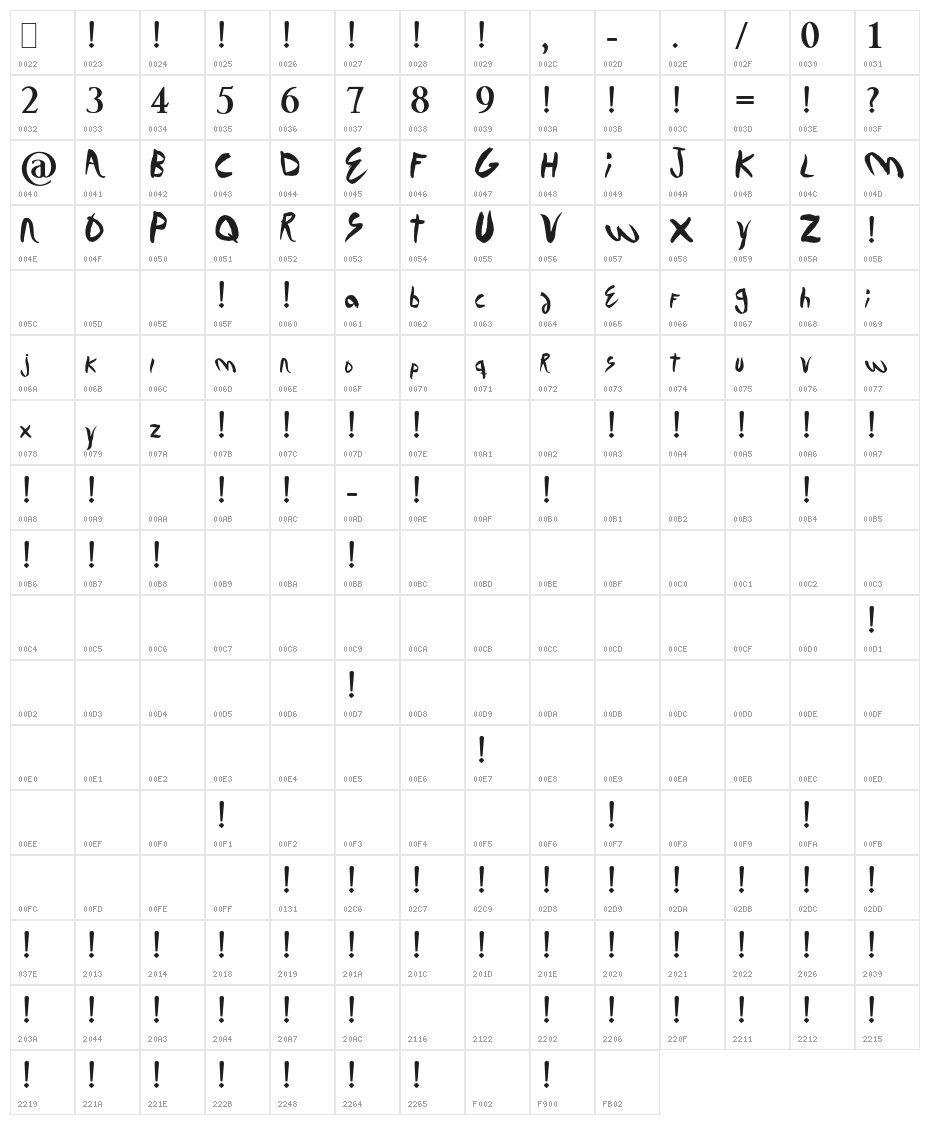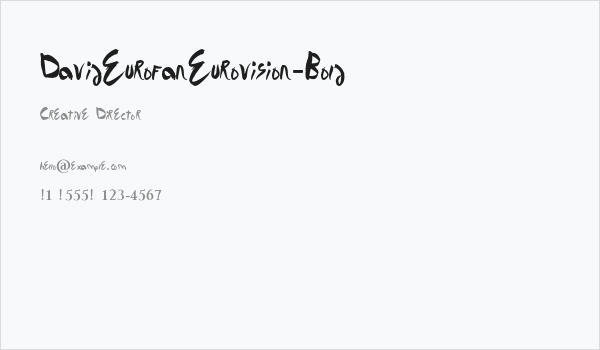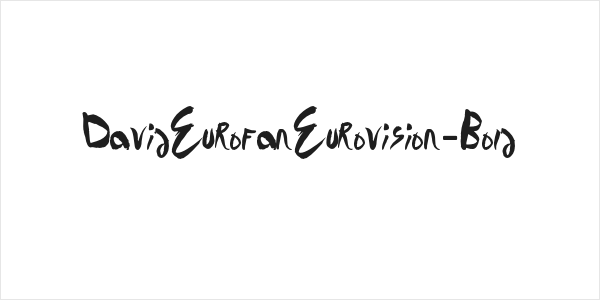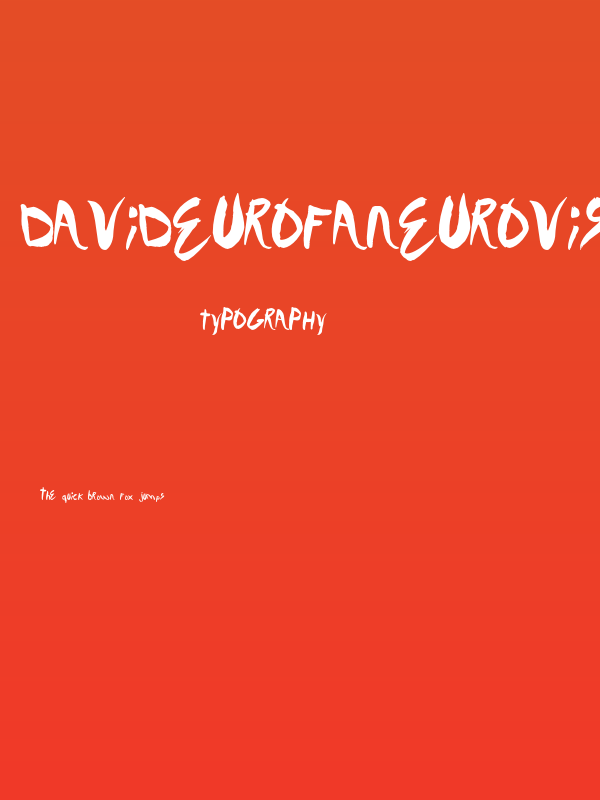
DavidEurofanEurovision-Bold Font
DavidEurofanEurovision-Bold Description
This font features a bold, expressive style with a handwritten appearance. The characters are dynamic and fluid, giving a sense of movement and energy. The uppercase letters are particularly striking, with exaggerated curves and angles that create a sense of drama. The lowercase letters maintain this lively aesthetic, while the numerals are more structured, providing a nice contrast. The special characters are bold and impactful, fitting well with the overall style. This font is ideal for projects that require a personal touch or a creative flair.
| Proposed Projects | Perfect for creative projects such as posters, invitations, and branding materials that require a personal and artistic touch. |